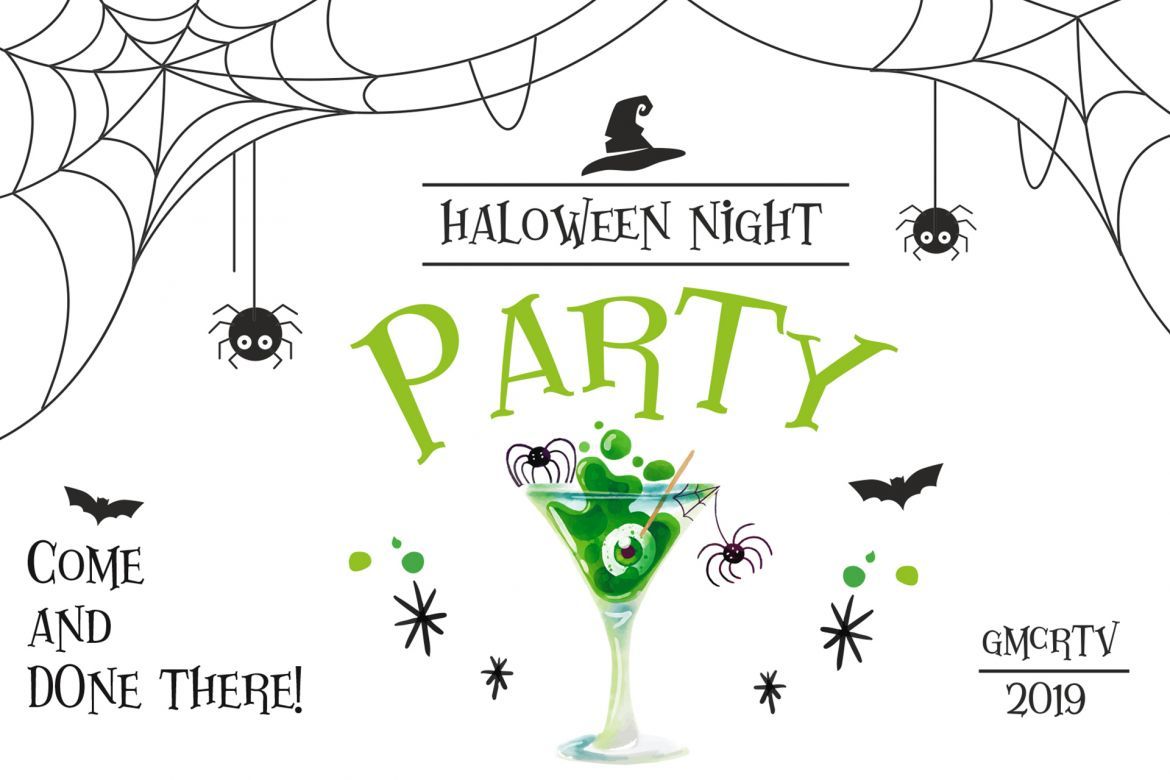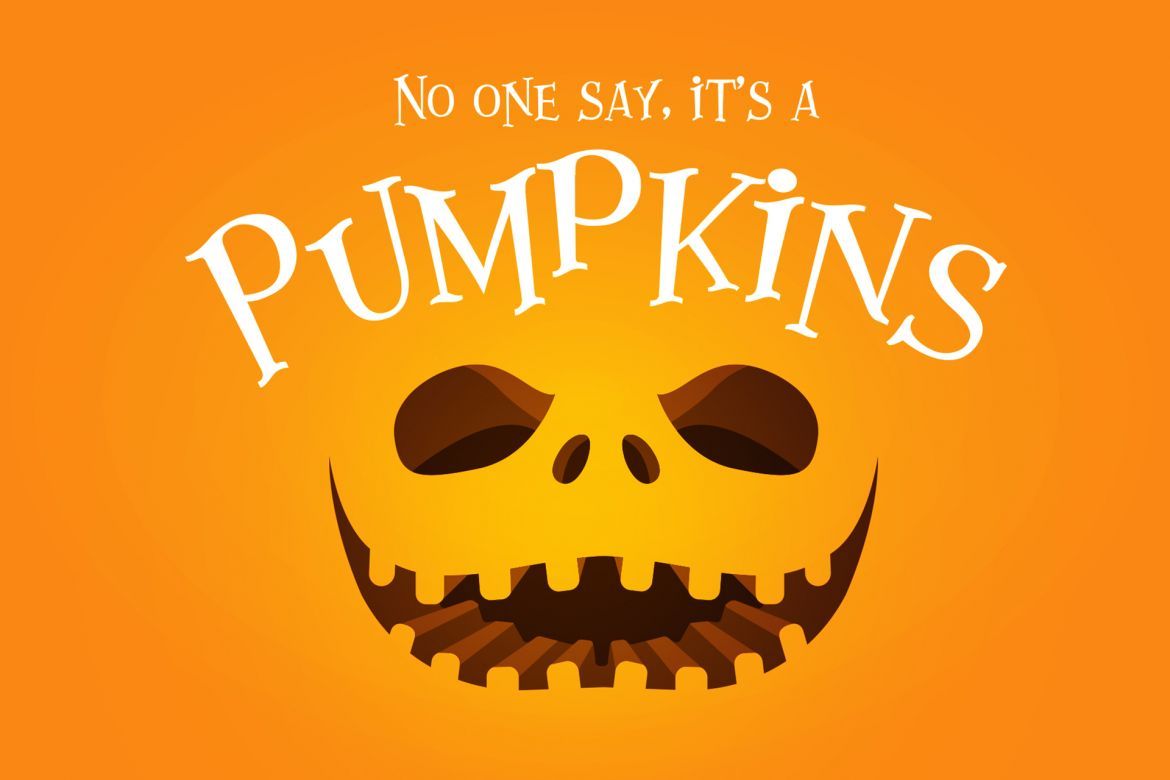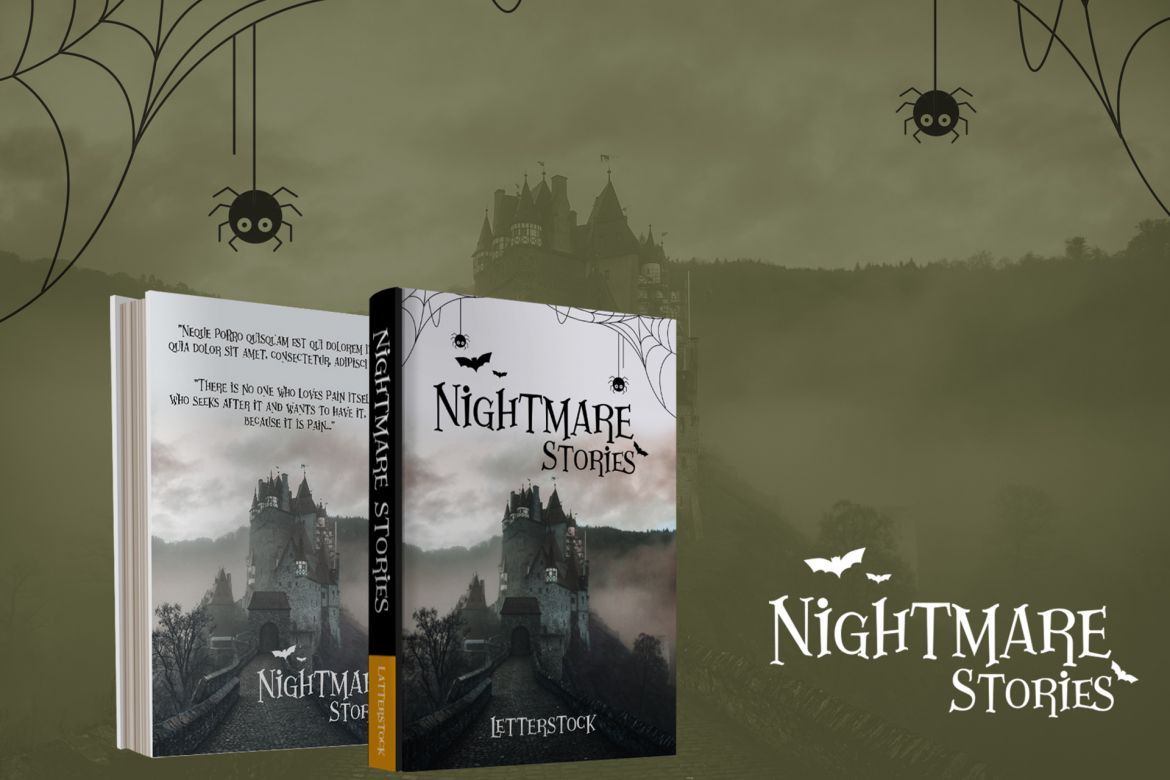
Lazarrous Cartoon Font
-- Spooky / Original / Decorative --
Lazarrous font is a decorative font family Inspired by kids book cover design, we try to make it more decorative so it's can useful for any purpose. it's perfect for you to show your design or product in professional way.
USE
Lazarrous font is works great in any branding, logos, magazines, films, poster, flyer, sign board, magazine,etc
• hand drawn font
• perfect for use on halloween poster design
• unique original style